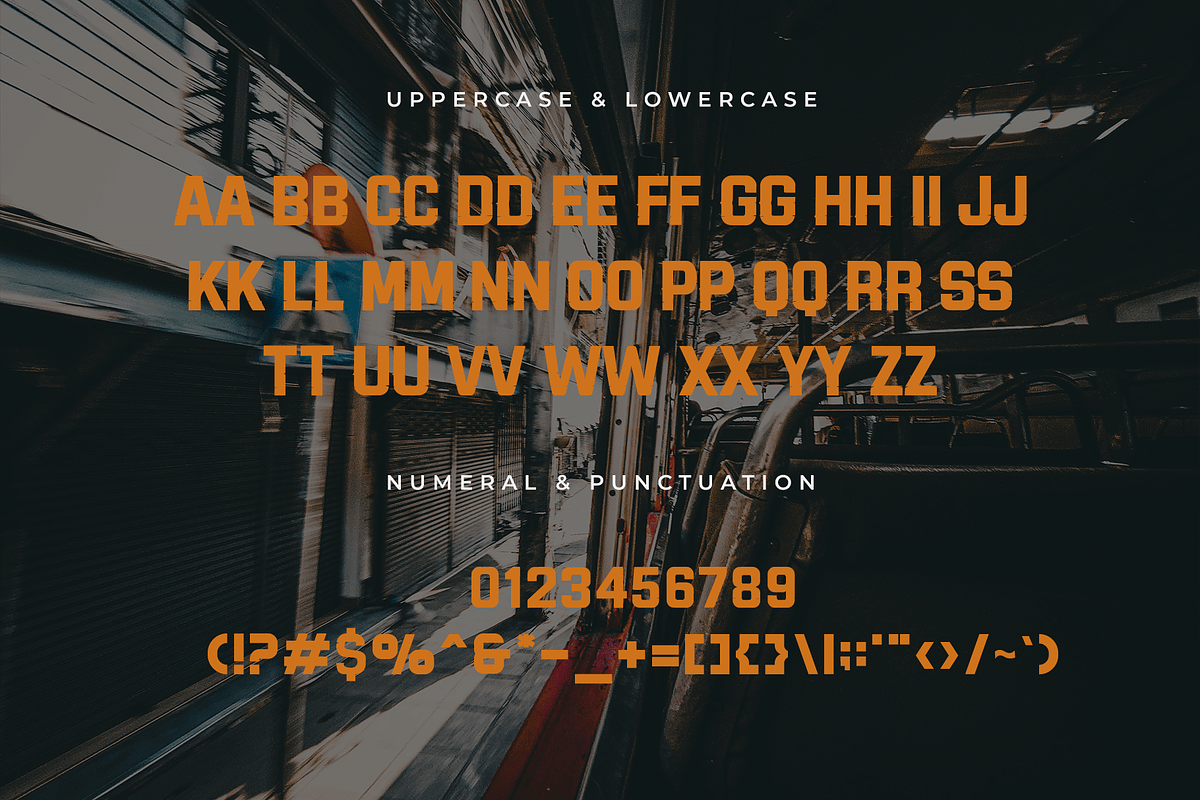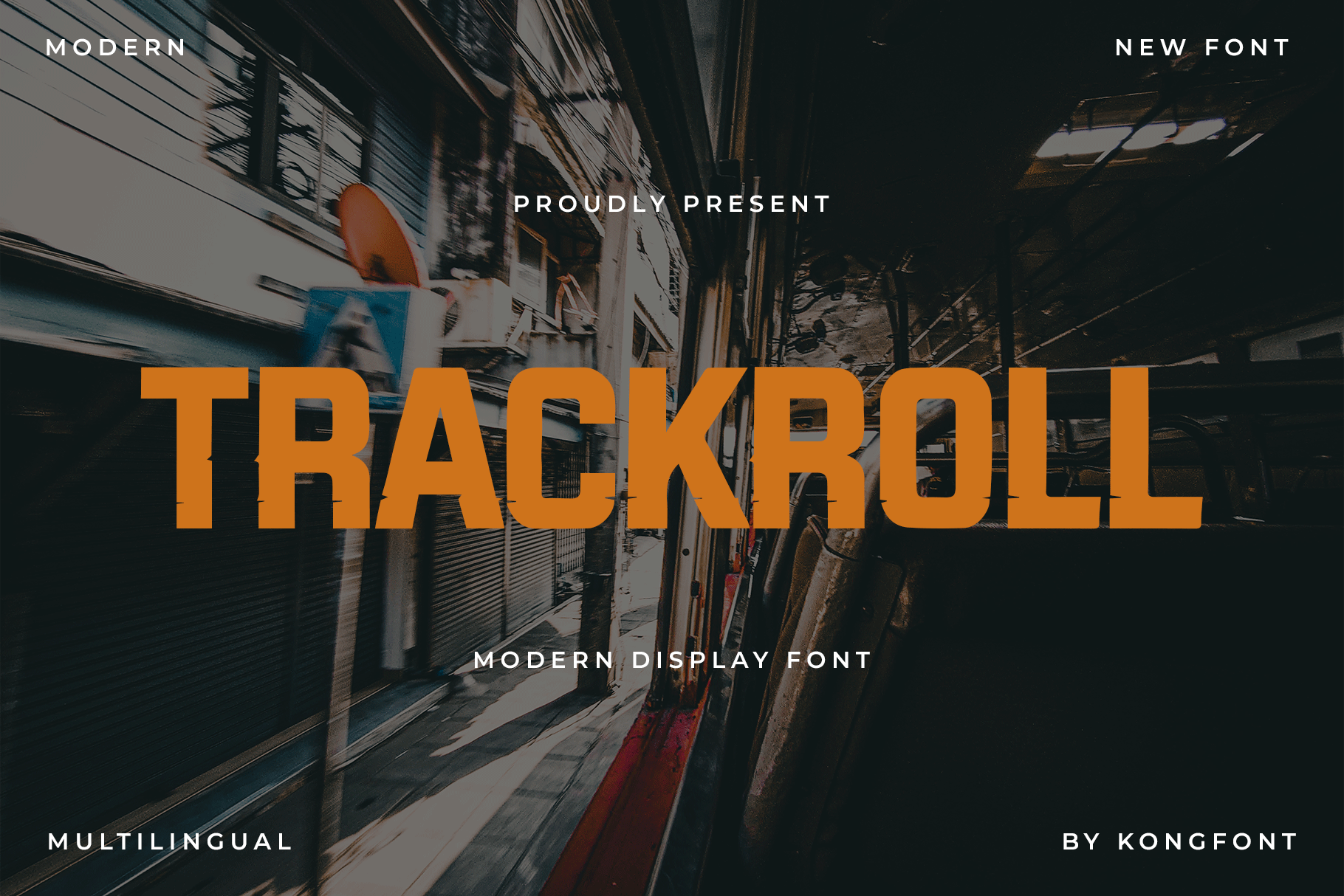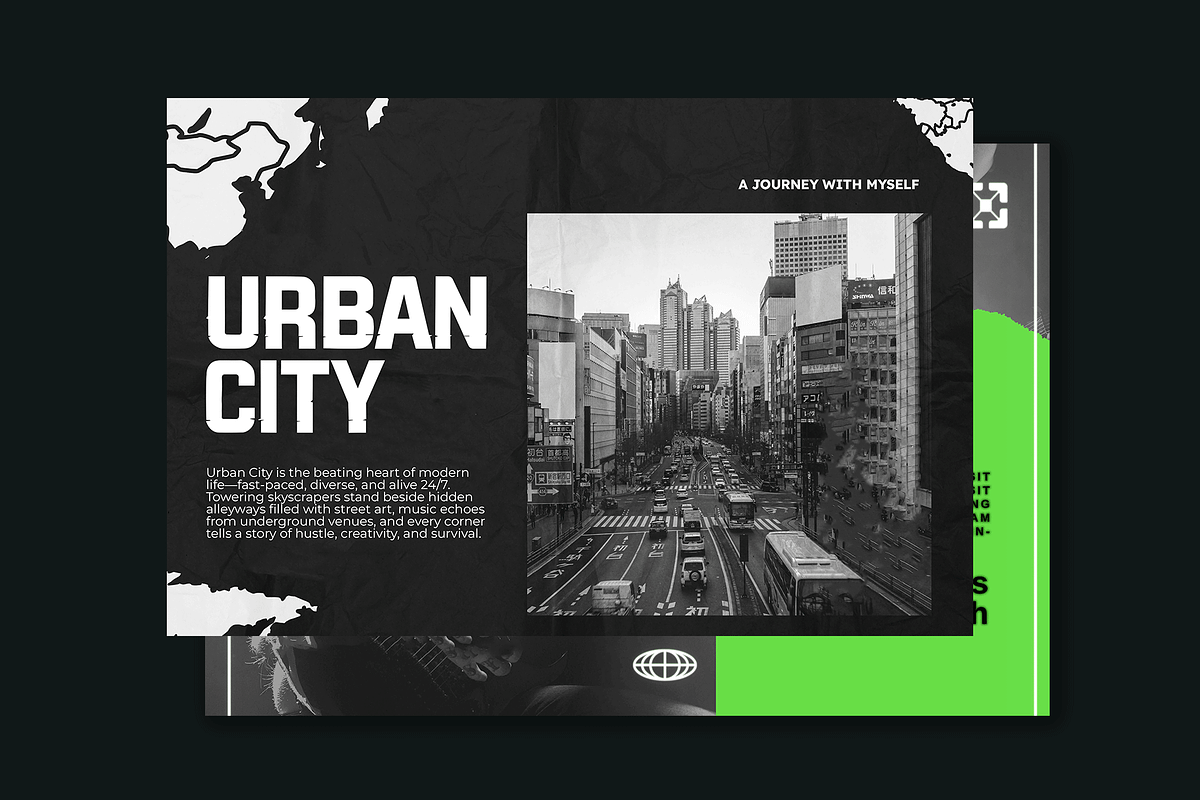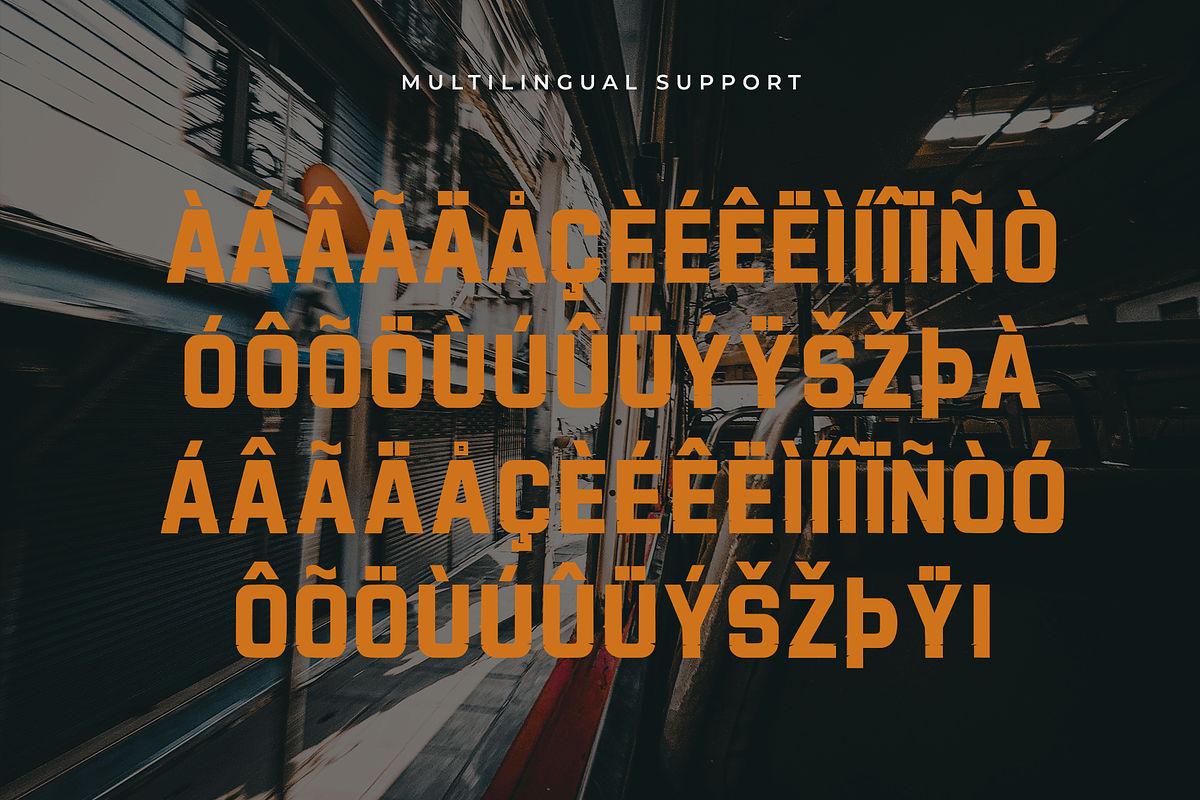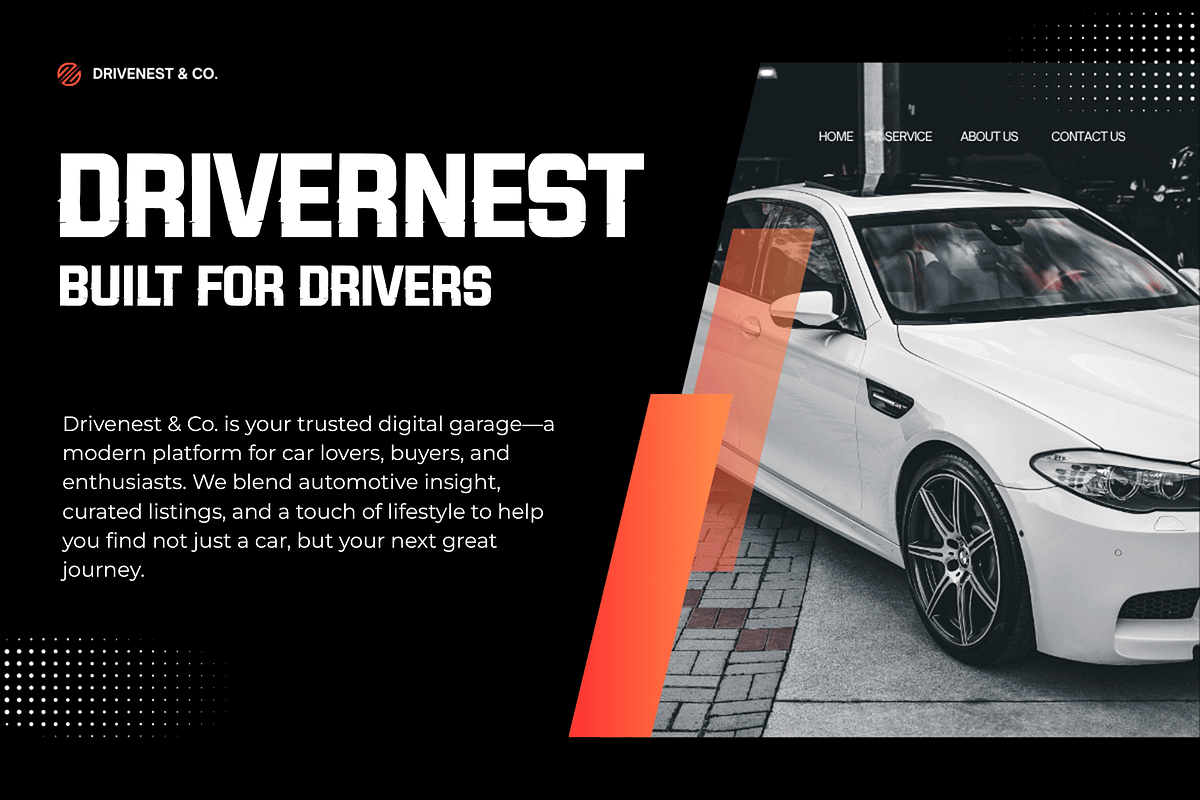
Trackroll – Modern Display Font
Trackroll is a modern display font that captures the energy of speed, rhythm, and forward movement. With its strong geometric forms and dynamic curves, this typeface brings a sense of momentum that’s perfect for sports branding, race-themed posters, tech visuals, and bold headlines.
The sleek, confident style of Trackroll makes it ideal for digital campaigns, merchandise, event titles, and modern logos. Whether you're designing for a music festival, fitness brand, or futuristic concept, this font delivers an impactful and professional edge.
Complete with uppercase and lowercase characters, numerals, punctuation, and multilingual support, Trackroll offers both power and flexibility for high-energy creative work.
Drive your message forward with Trackroll where typography meets speed and style.